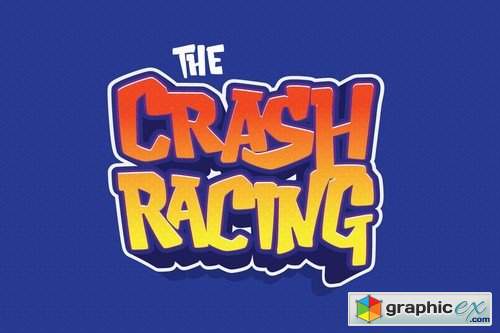
Rustic Raster - Playful Game Font
Rustic Raster - Playful Game Font, So beautiful on Logo game, branding materials, business cards, quotes, posters, and more!